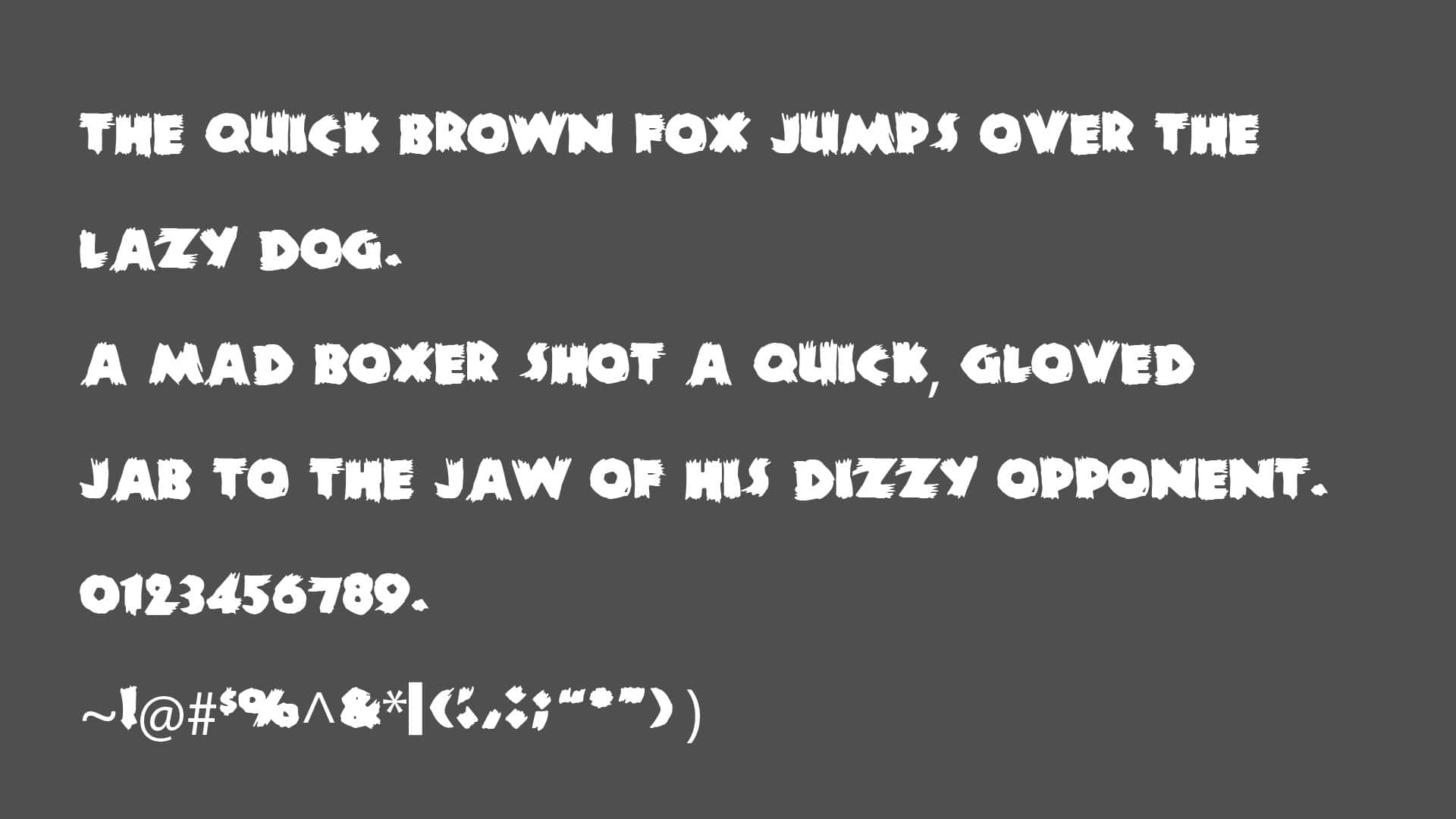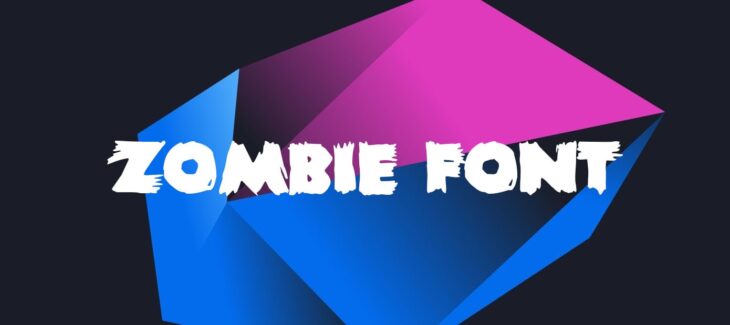
Let’s introduce a scary texture font that is specially designed for horror texture appearance name Zombie Font. This scary font style is the type of Display typeface font family. This typeface is designed by the famous typeface manufacturer industry who has designed more than 100 font styles named Chequered Ink.
This font style is inspired by a famous font named Neuland Black. This textured style has more than 50 glyphs and 80 characters. This font style comes with the single-family that contains only uppercase letters and numbers including symbols and special characters that are best for Display and heading purposes.
Who Can Use Zombie Font?
This typeface has a texture style that looks like a brush drawn with blood. So, many designers are using this text style in many of their designs. Users in Western Countries are using this textured style in their various designs like Halloween Projects, fright nights designs, etc. So, this font is used to create many fancy and creepy designs.
This typeface contains fancy and illusioned designs which cannot be used in any kind of official documentation. This font style is used for creating invitation cards, banners, broachers, etc. This typeface is using in any kind of fancy presentation.
It’s a creative fancy art-type font texture that can widely use for commercial projects. Mostly like creating designs of T-shirts, making banners, for art purposes, etc. This font is very close to the brandon text font.
How Does Zombie Font Family Appear?
| Name | Zombie Font |
| Designer | Chequered Ink |
| Style | Fancy |
What type of font Zombie Font is?
This typeface is the type of Fancy typeface font family and it is designed by the famous typeface manufacturer industry who has designed more than 100 font styles named Chequered Ink.
Is there any font similar to the Zombie Font?
There are various fonts that are similar to this typeface. But, the ar bonnie font is most similar to this textured. So, it is also using as an alternative to this font style.